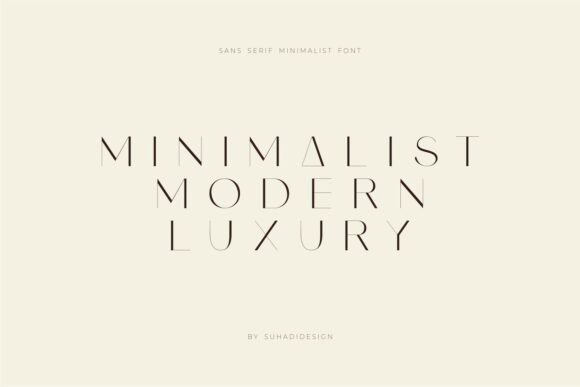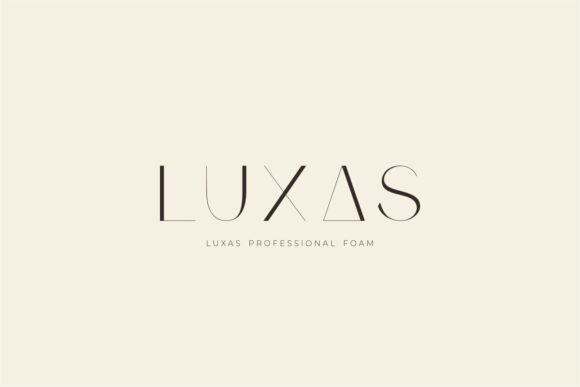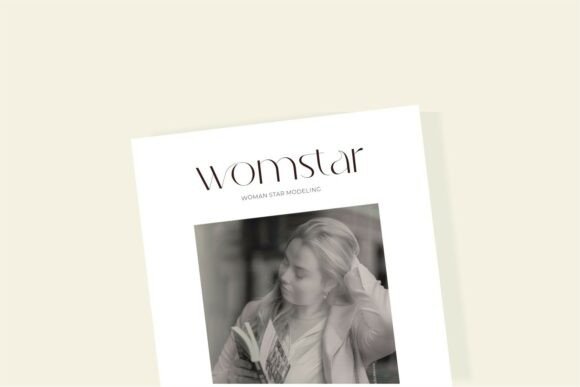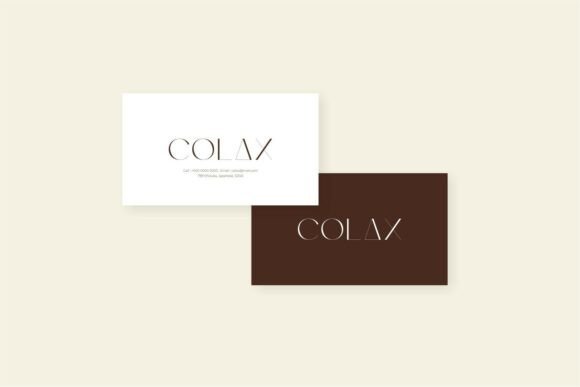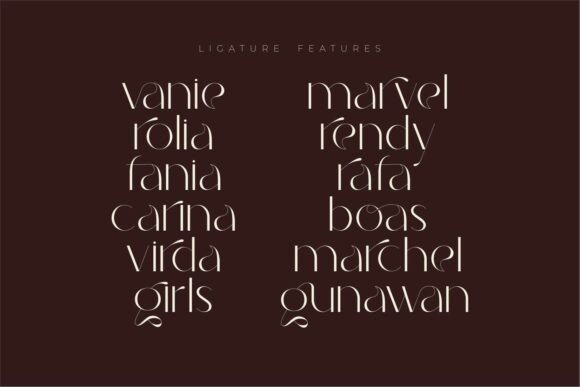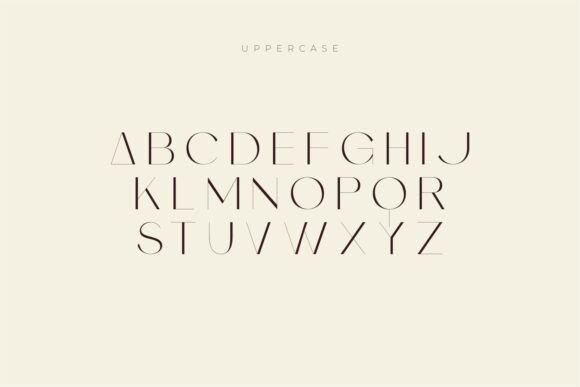
Introducing Consa Font: The Ultimate Sans Serif Minimalist Font
Hello, designers and crafters! Are you on the lookout for a modern and elegant font to elevate your design projects? Look no further than the Consa font, the latest minimalist sans serif font that’s taking the design world by storm. In this article, we’ll dive into the features and benefits of the Consa font, and explore how it can enhance your designs.
What is Consa Font?
The Consa font is a sleek and modern sans serif font designed to keep it cool and simple. With its clean lines and minimalist aesthetic, this font is perfect for designers who want to create elegant and classy designs. The Consa font is equipped with ligature features, which add a touch of sophistication to your text.
Key Features of Consa Font
So, what makes the Consa font stand out from the rest? Here are some of its key features:
• Minimalist design: The Consa font boasts a clean and minimalist design that’s perfect for modern designs.
• Sans serif: The font’s sans serif design makes it easy to read and versatile for various design projects.
• Ligature features: The Consa font comes with ligature features that add a touch of elegance to your text.
• Modern aesthetic: The font’s modern design makes it perfect for designers who want to create fresh and contemporary designs.
Use Cases for Consa Font
The Consa font is a versatile font that can be used for a wide range of design projects, including:
• Logos and wordmarks: The Consa font is perfect for creating elegant and classy logos and wordmarks.
• Magazines and publications: The font’s clean design makes it ideal for magazines, books, and other publications.
• Branding and business cards: The Consa font is a great choice for branding and business cards, as it exudes elegance and sophistication.
• Social media: The font’s modern design makes it perfect for social media graphics and posts.
• Beauty and cosmetics: The Consa font is a great fit for beauty and cosmetics brands, as it conveys a sense of elegance and class.
Why Choose Consa Font?
So, why should you choose the Consa font for your design projects? Here are some reasons:
• Elegant and classy: The Consa font is designed to be elegant and classy, making it perfect for designers who want to create sophisticated designs.
• Versatile: The font’s versatility makes it suitable for a wide range of design projects.
• Modern aesthetic: The Consa font’s modern design ensures that your designs look fresh and contemporary.
• Improves design quality: The Consa font is designed to enhance the quality of your designs, making them stand out from the crowd.
Font Name Consa Font
Author suhadidesign